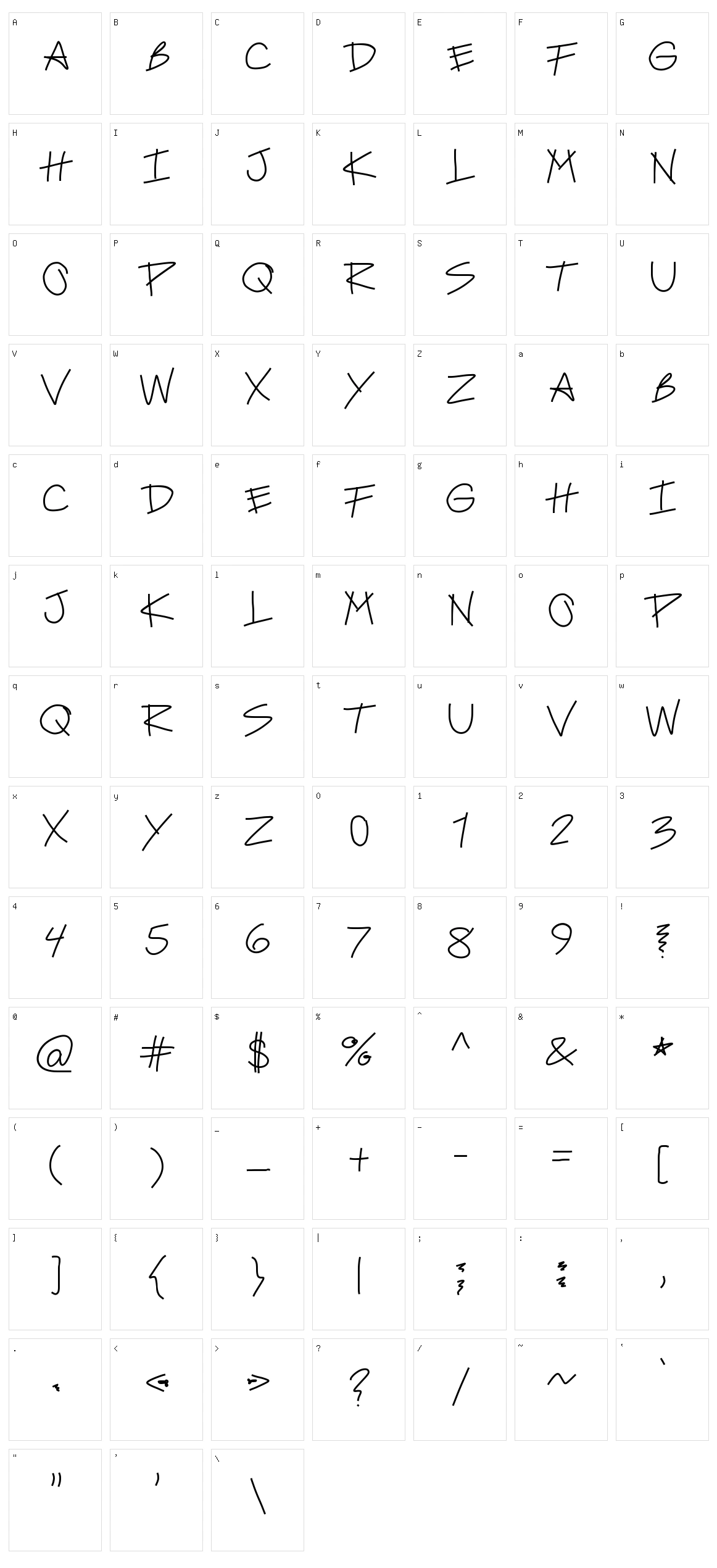
The free font Fck me harder is carefully designed by Grizel Hernandez, showcasing a thoughtful balance of creativity and usability and falls under the Script font style. When you download the ZIP file, it contains only 12.99 KB of font files, making it lightweight and quick to download. Please review the license details below to understand permitted usage and distribution rights. If license information is not available, we recommend using this font for personal projects only or contacting the author directly for commercial usage permissions.